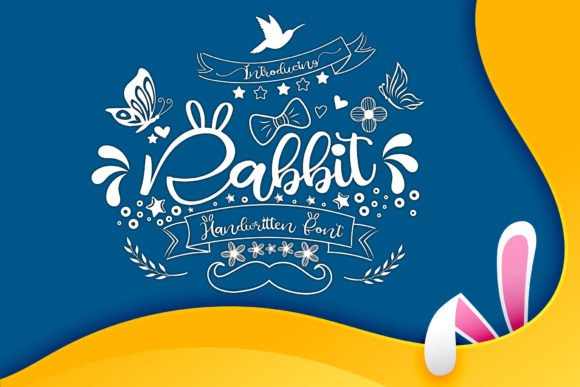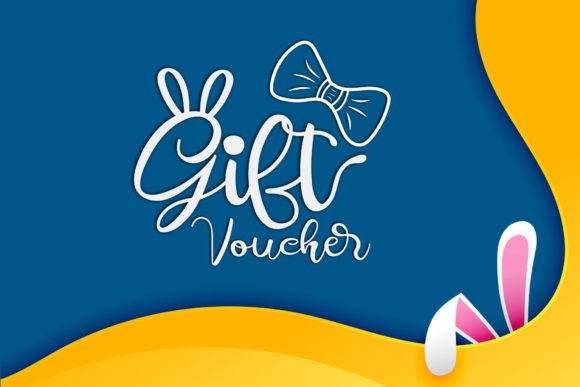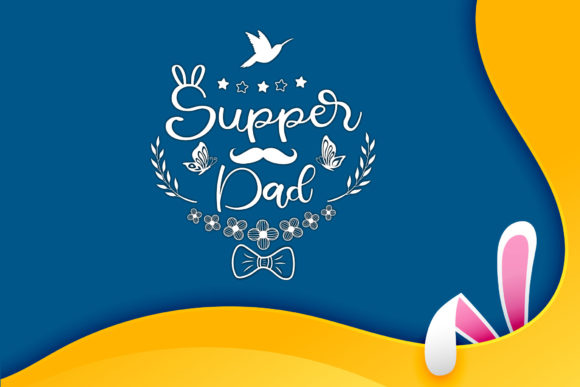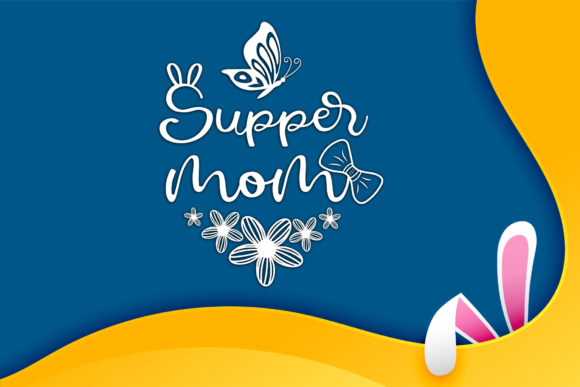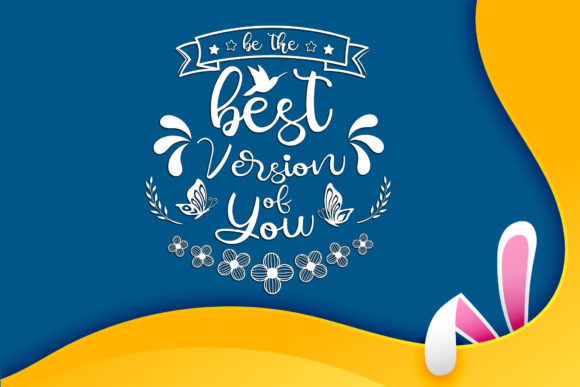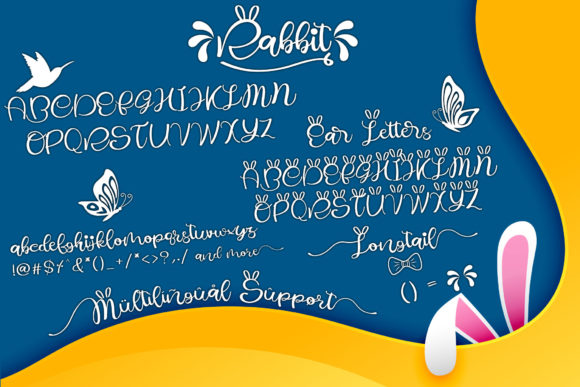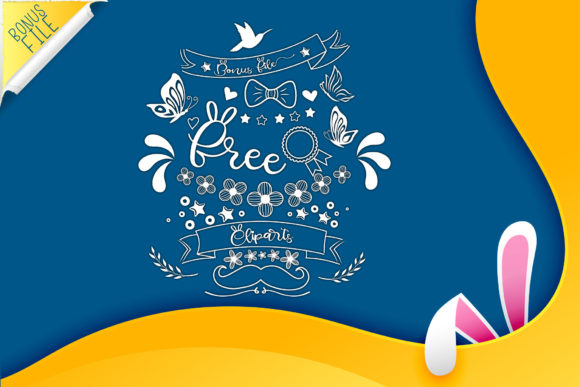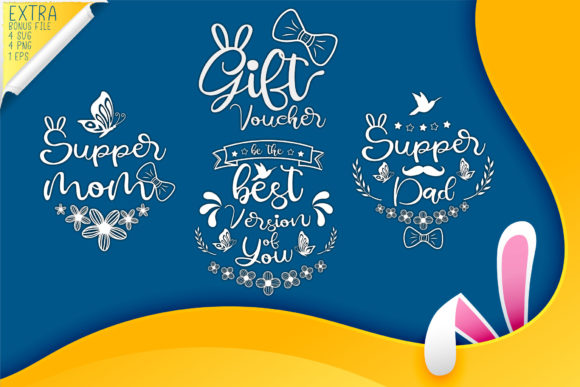
Rabbit Font
About Rabbit Font
Rabbit is a beautiful and refined script font. It has a classy, elegant and modern look that can be used for logos, branding, invitations, stationery, wedding designs, social media posts, and much more!